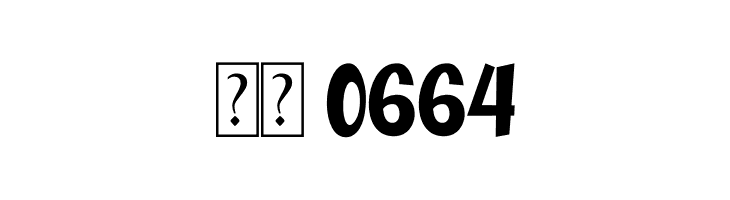
• Choco Candy
A playful, bubbly font with a hand-drawn, whimsical style.
• Choco Cheese
( Fonts by The Typerex )
A playful, bold font with chunky, rounded characters and a whimsical style.
• Choco Chips
A playful, bold handwritten font with rounded, smooth characters.
• Choco Cookies
( Fonts by Rochart Studio )
A playful, bold font with rounded, whimsical letterforms.
• Choco Crepes
A playful, bold, and rounded font with a hand-drawn style.
• Choco Crunch
( Fonts by Fikryal studio )
A bold, playful font with rounded, low-contrast characters.
• Choco Letter
( Fonts by Typefar )
A playful, bold handwritten font with smooth, rounded edges and lively character.
• Choco Letter
( Fonts by Typefar )
A playful, bold font with rounded, thick strokes and a hand-drawn feel.
• Choco Matcha
( Fonts by Abo Daniel Studio )
A bold, decorative font with playful, hand-drawn characters.
• Choco Mellow Demo
( Fonts by VinType )
A playful, bold font with a whimsical, hand-drawn style.
• CHOCO RUM CAKE
( Fonts by The Docallisme )
A bold, three-dimensional uppercase font with a playful and dynamic style.
• Choco Shake
A playful, bold font with rounded edges and a bubbly appearance.
• Choco Splash
A playful, bold, hand-drawn font with rounded strokes and a whimsical style.
• ChocoBear
( Fonts by Fachranheit )
A playful, bold font with exaggerated curves and a whimsical design.
• Chocobot Stacked Regular